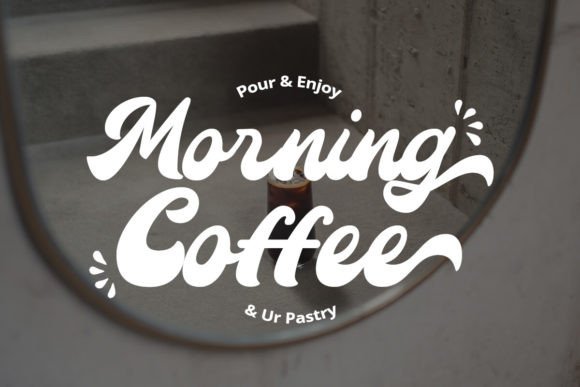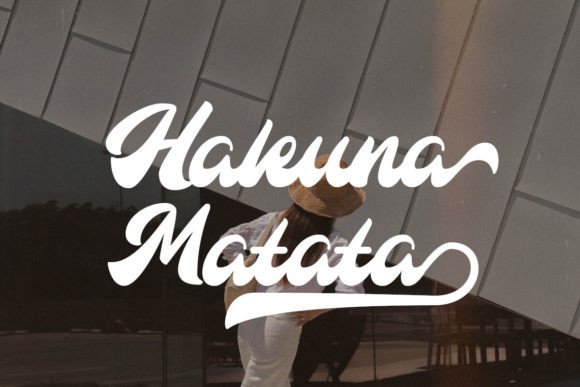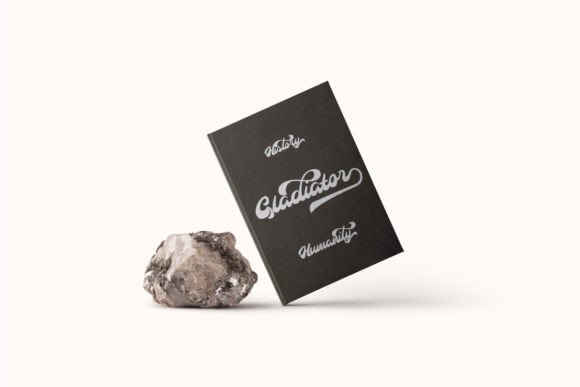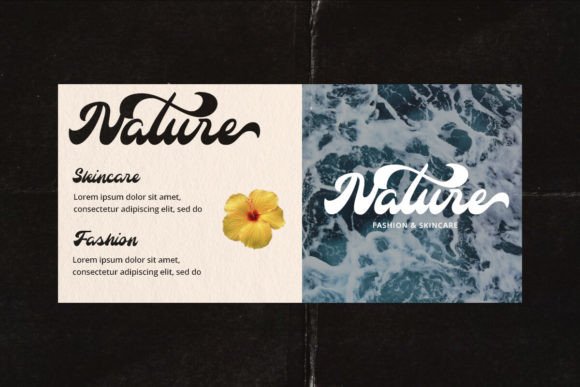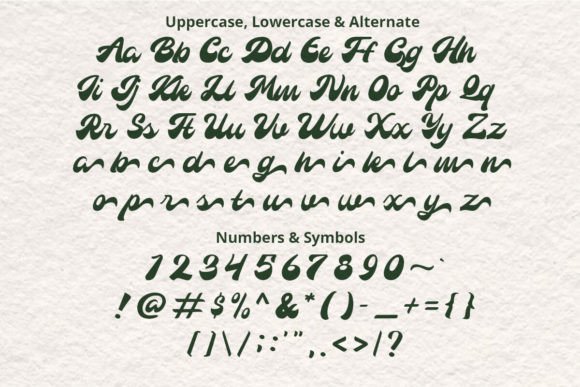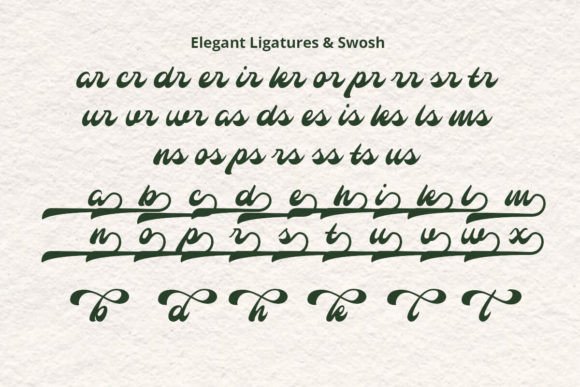
Unleashing the Timeless Charm of Galliardo Font
Have you ever stumbled upon a vintage poster or an old film title and been captivated by the elegant curves and sophisticated flair of the font? That’s exactly the kind of magic that the Galliardo Font can bring to your designs. This versatile script combines the sophistication of Art Deco with the cool, retro vibe of the 70s, making it the perfect choice for designers looking to add a touch of timeless charm to their work.
Whether you’re working on branding projects, signage, or packaging, the Galliardo Font is a valuable tool that can help you create a memorable and distinct visual experience. Its classic and vintage-inspired typeface is perfect for adding a sense of nostalgia and sophistication to your designs, making it a go-to choice for designers who want to stand out from the crowd.
Galliardo Font Key Features
- Font Style: Script, Calligraphy
- Language Support: Supports Latin-based languages, including English, Spanish, French, German, Italian, Portuguese, and more
- Unique Characteristics: Elegant, cursive script with subtle flair and dynamic feel, ideal for creative and artistic applications
Galliardo Font Review
I recently had the chance to work with the Galliardo Font, and I must say it’s a beautiful addition to any design project. Here are some of its standout features: ✨
- Elegant and refined aesthetic: The Galliardo Font has a sophisticated look that instantly elevates any text-based content.
- Wide range of styles: With its various weights and styles, this font offers a lot of flexibility for designers looking to create a consistent visual identity.
- Highly legible: Despite its elegant appearance, the Galliardo Font remains highly readable, making it perfect for body text and long-form content.
- Limited support for languages: Unfortunately, the Galliardo Font may not be the best choice for projects that require a wide range of language support.
- Not ideal for small text: While the font is highly legible, it can appear a bit chunky when used for small text, which may not be suitable for certain design applications.
Overall, I think the Galliardo Font is a great choice for designers looking to add a touch of sophistication to their projects. While it may have some limitations, its unique aesthetic and wide range of styles make it a valuable addition to any design library.
Tips for Getting the Most Out of Galliardo Font
1. Use Galliardo Font for headings and titles to add a touch of elegance to your design.
2. Pair Galliardo Font with other elegant fonts to create a sophisticated look.
3. Experiment with different font sizes and styles to find the perfect combination.
2. Luxury brand logos and marketing materials.
3. High-end packaging and product labels.
Alternatives to Galliardo Font
Oswald is a sans-serif font that is clean, modern, and highly legible. It is suitable for use in headings and titles, particularly in digital media and on-screen displays.
Comparison to Galliardo Font: Oswald is more geometric and sans-serif, whereas Galliardo Font is a serif font with a more elegant and vintage feel. Oswald is better suited for modern and tech-related projects, whereas Galliardo Font is more suitable for traditional and classic designs.
Merriweather is a classic serif font that is elegant, refined, and highly legible. It is suitable for use in body text, particularly in printed materials and academic publications.
Comparison to Galliardo Font: Merriweather is more traditional and classic, whereas Galliardo Font is more elegant and vintage. Merriweather is better suited for formal and academic projects, whereas Galliardo Font is more suitable for creative and artistic projects.
Playfair Display is a luxurious serif font that is elegant, refined, and highly ornate. It is suitable for use in headings and titles, particularly in high-end branding and luxury products.
Comparison to Galliardo Font: Playfair Display is more ornate and luxurious, whereas Galliardo Font is more elegant and vintage. Playfair Display is better suited for high-end and luxury projects, whereas Galliardo Font is more suitable for creative and artistic projects.